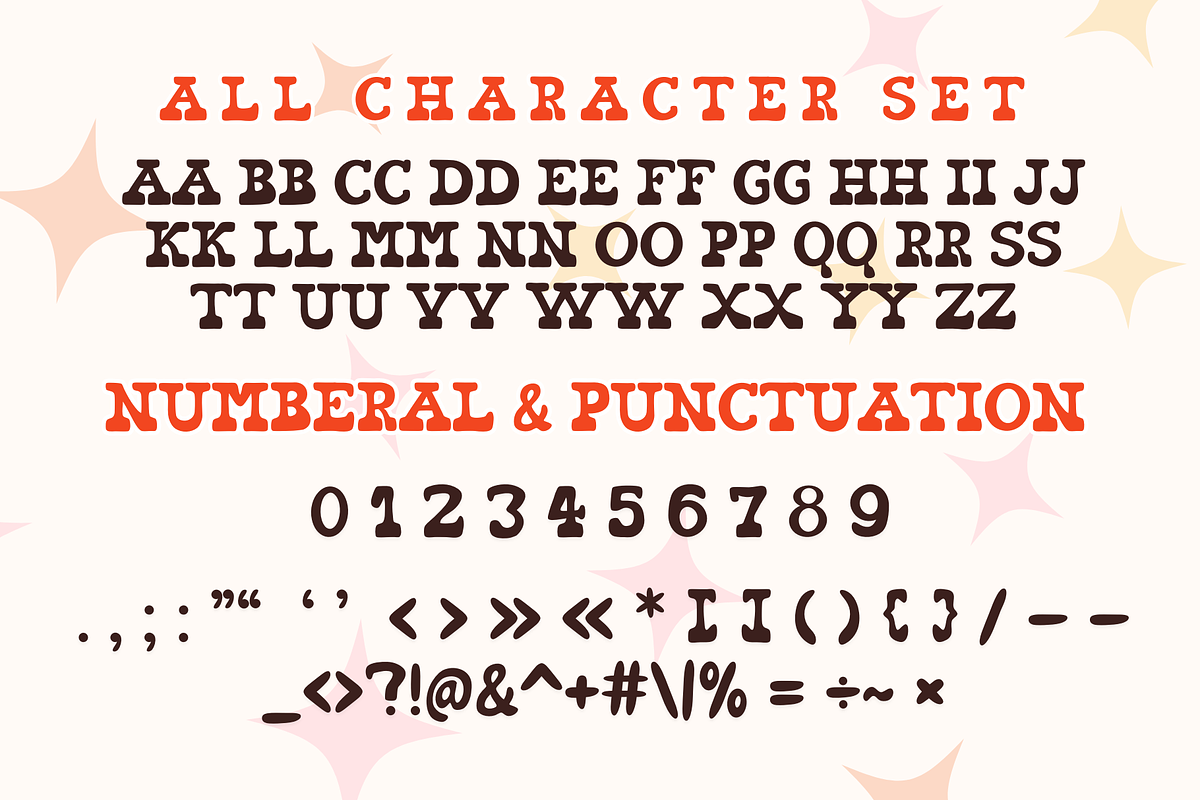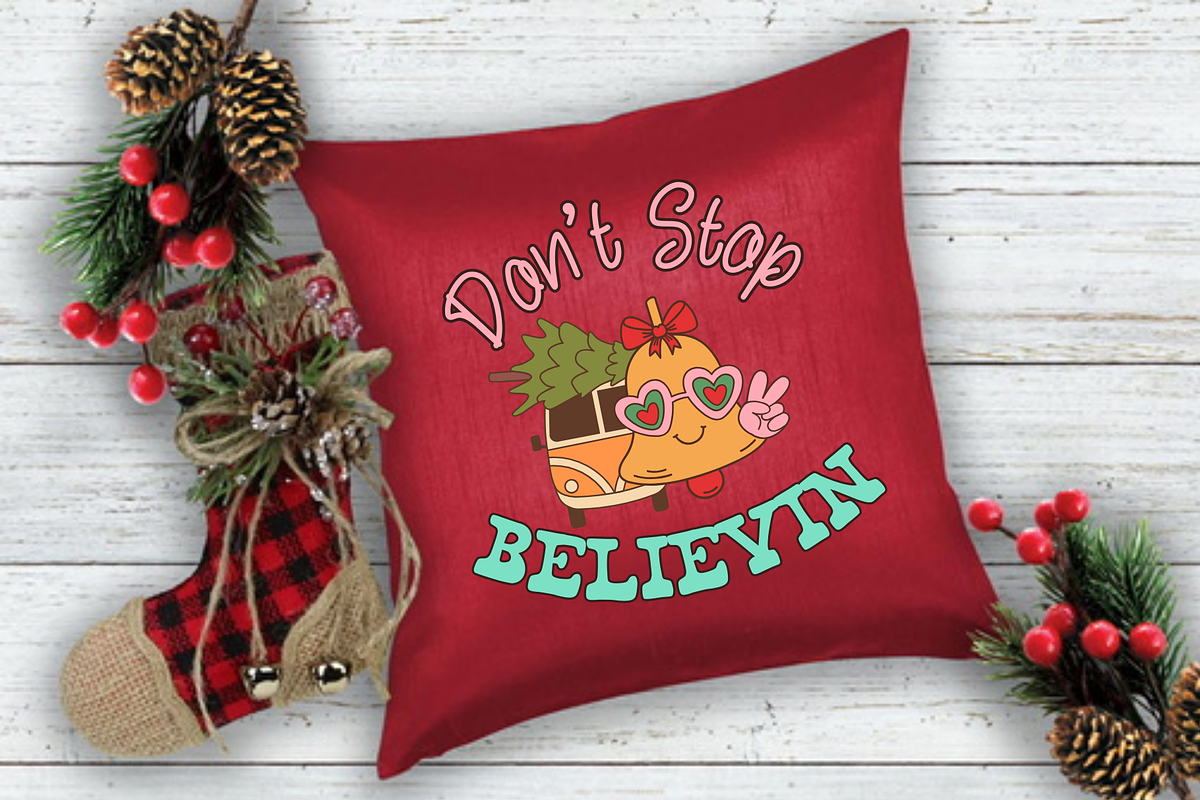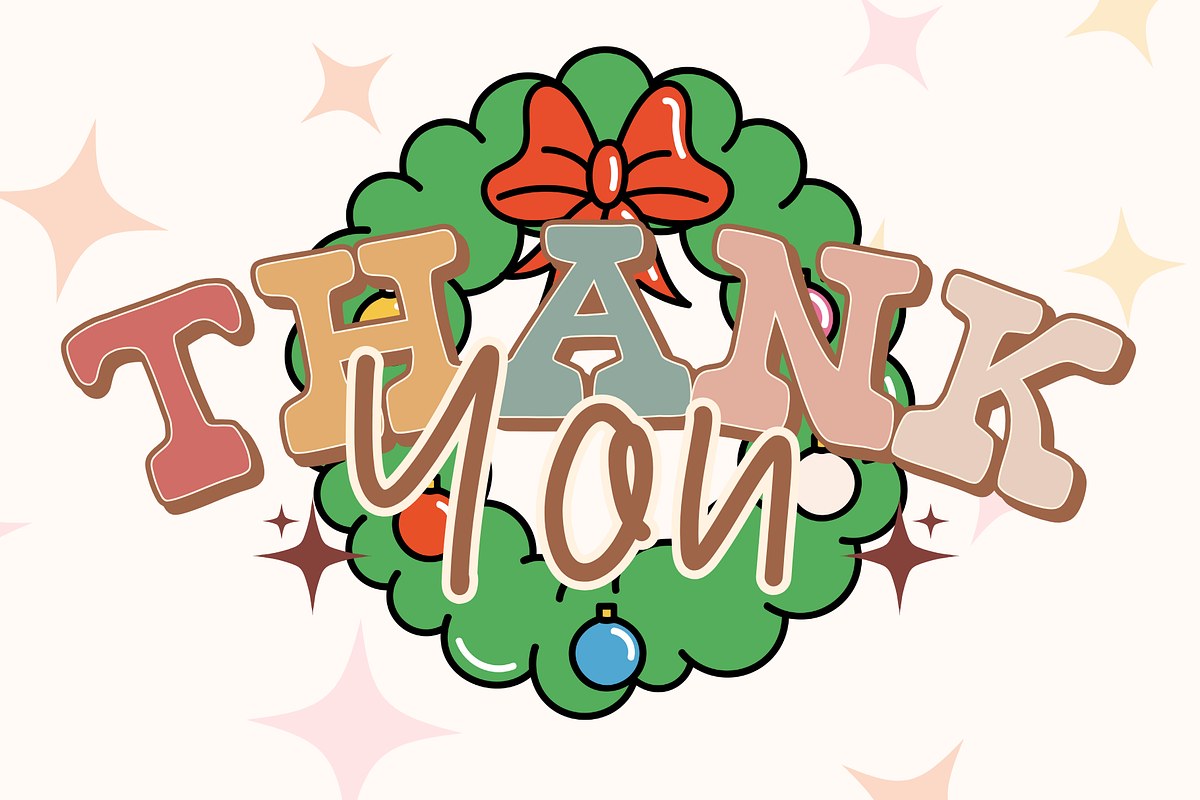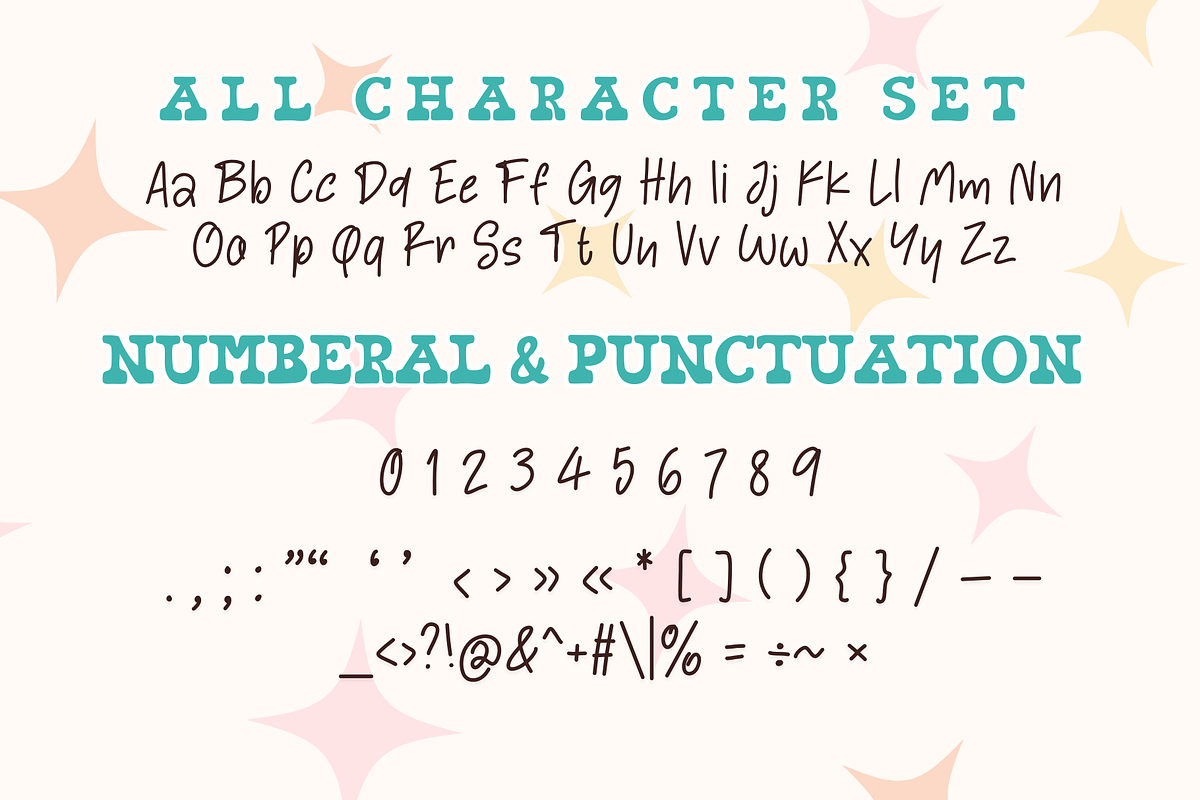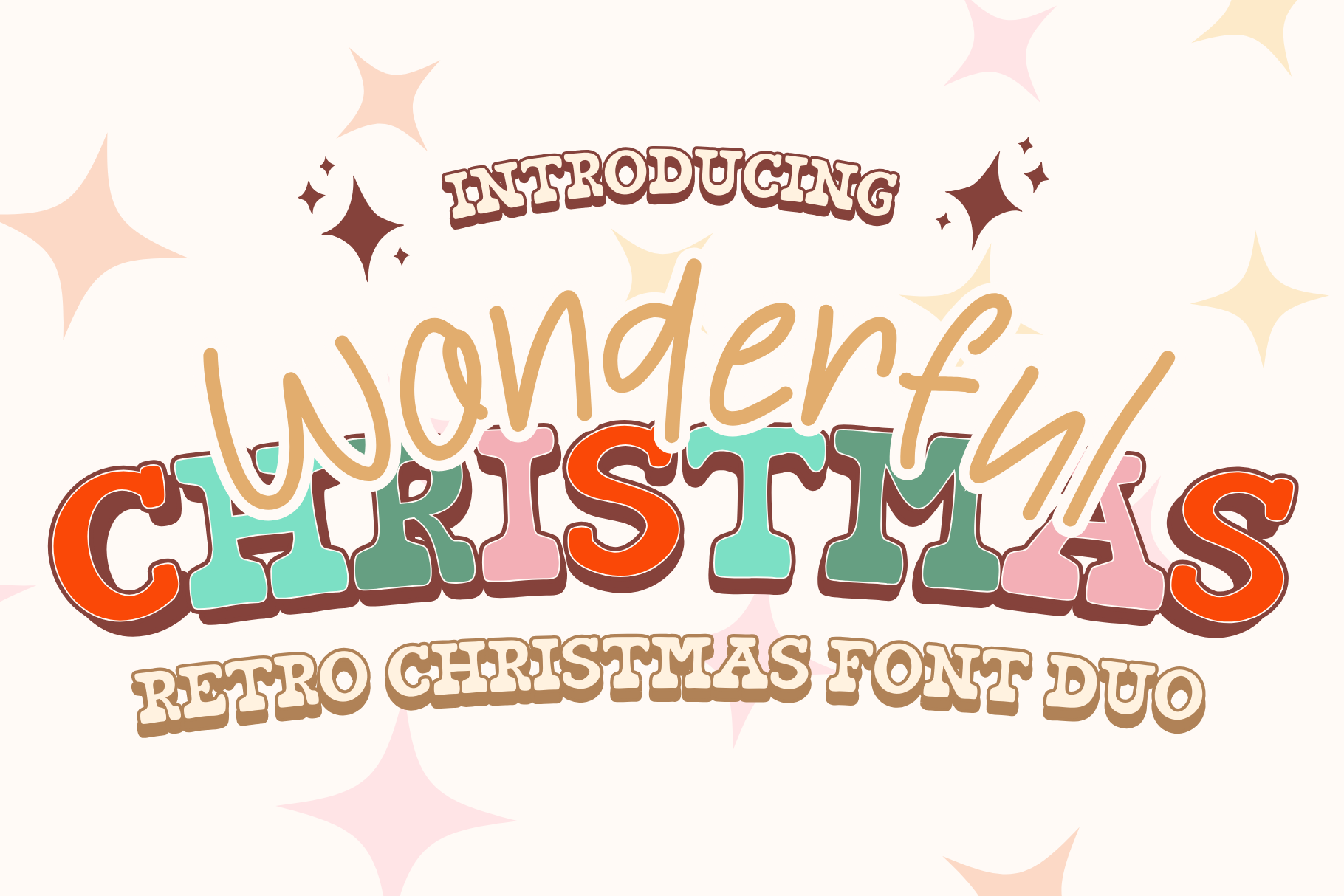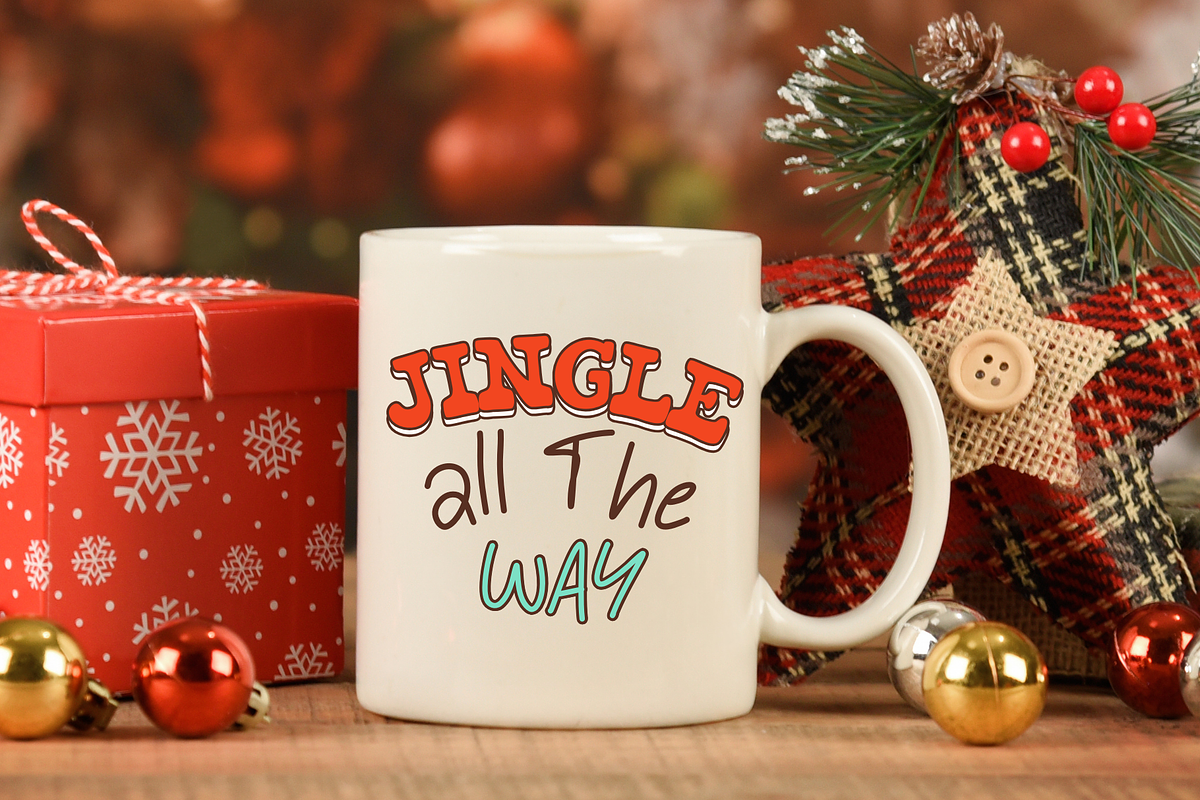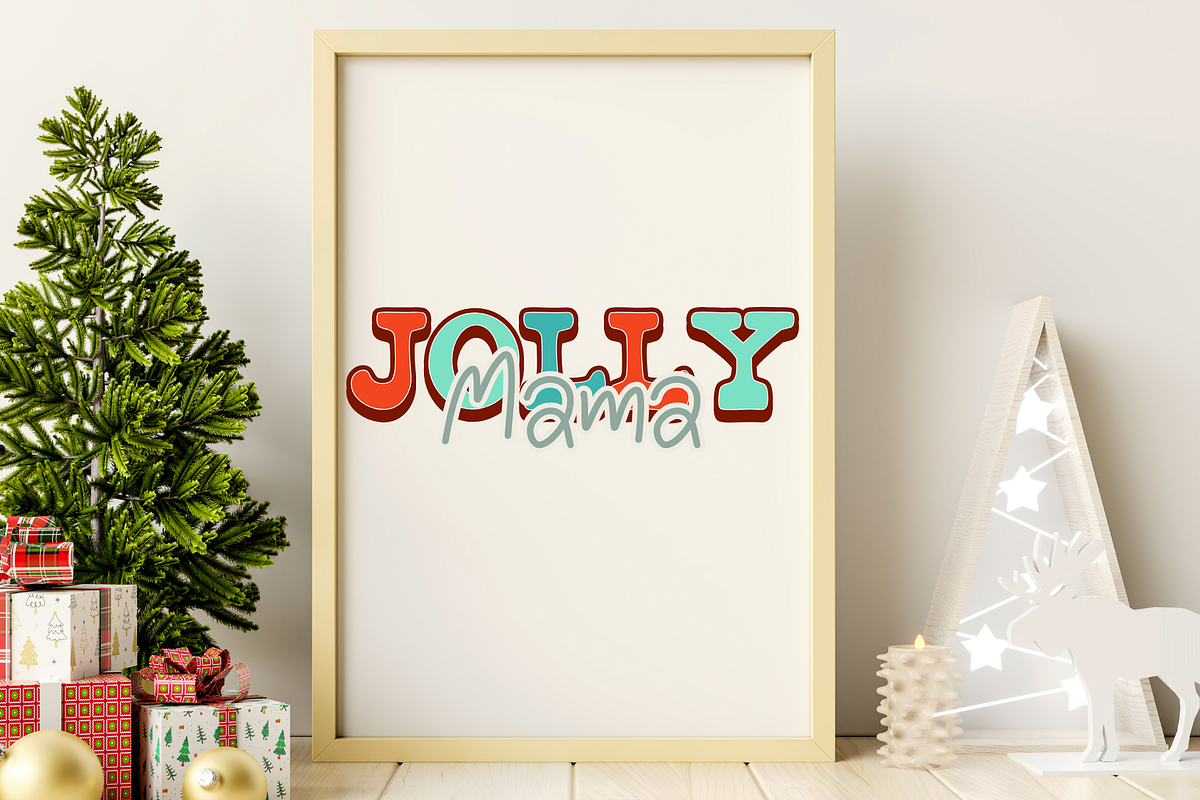
Wonderful Christmas - Christmas font
Wonderful Christmas is a stylish Christmas duo font, combining a display and handwritten typeface that exudes a cool and serif font. Ideal for all your hippie-inspired designs, It embodies playfulness and authenticity and is the perfect choice for all your favorite projects, or even for blog posts, logos, branding, ads, invitations, greeting cards, planners, photo albums, decorations, and much more. Add it to any of your designs, and enjoy the results!